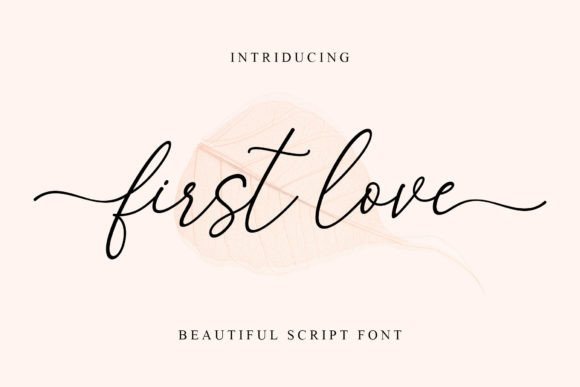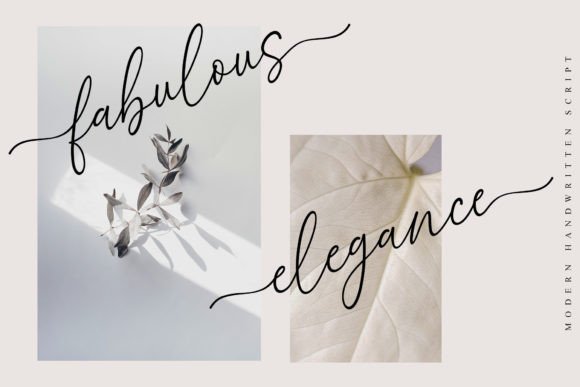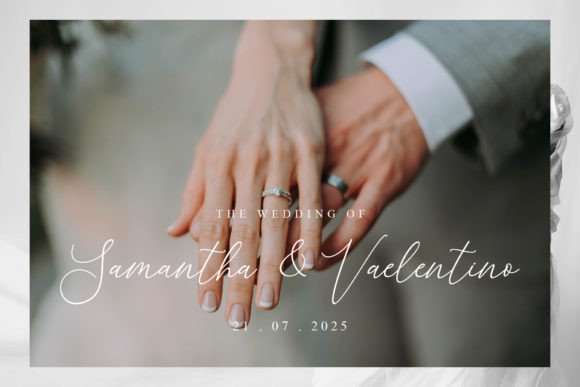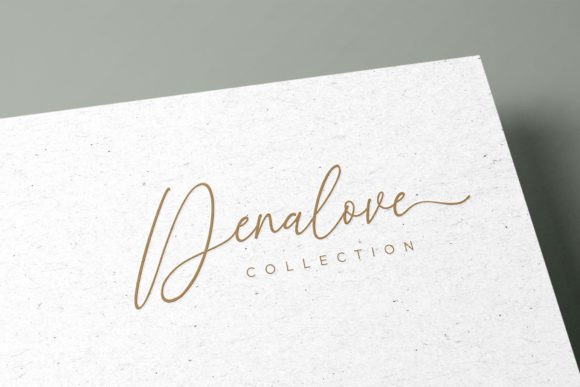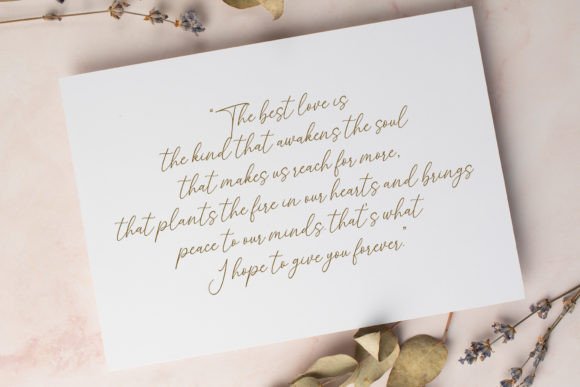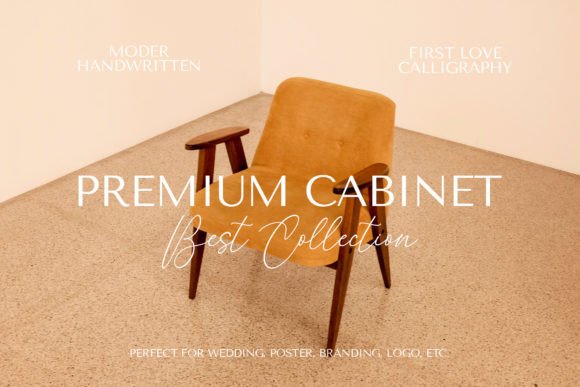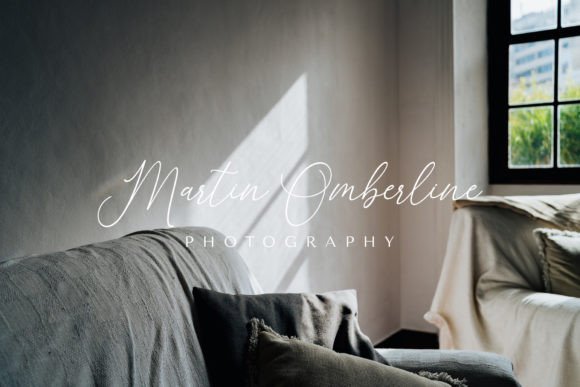
The Moment Your Heart Beats for Design
Have you ever been so captivated by a design that it felt like a piece of your heart was on display? For many of us, it’s that one project that sparks a passion for creativity, a project that reminds us why we love making things. Maybe it was a wedding invitation that set the tone for your best friend’s special day, or a logo that perfectly captured the essence of your brand. Whatever it was, it’s a feeling we all know and cherish.
For designers, finding the right font can be the key to unlocking that magic. That’s where the First Love Font comes in – a charming and modern script font designed to add a personal touch to your designs. With its smooth and flowing letterforms, this font is perfect for wedding invitations, social media posts, logos, and other design projects that require a touch of elegance and sophistication.
Key Features of First Love Font
- Font Family: First Love Font is a unique, handwritten font designed to evoke emotions and convey a sense of romance.
- Size: Each font character is carefully crafted in a single weight, making it easy to use across various design projects.
- Resolution: Optimized for high-resolution displays, ensuring clear and crisp text output on modern devices.
- Unique Characteristics: Features a mix of elegant, cursive, and handwritten elements, making it perfect for wedding invitations, love letters, and other romantic designs.
- Character Set: Includes a wide range of characters, including uppercase and lowercase letters, numbers, and punctuation marks, as well as various ligatures and swashes.
First Love Font Review
I’ve had the chance to work with the First Love Font, and I must say, it’s a lovely addition to any design project. ✨ One of the things I appreciate about this font is its elegant and whimsical feel, making it perfect for romantic or vintage-themed designs.
Here are some of its key features that I enjoy:
- ✨ Beautifully crafted ligatures that add a touch of sophistication
- ✨ A wide range of weights and styles to choose from, ensuring versatility in design applications
- ✨ The font’s soft, rounded edges make it easy on the eyes and a pleasure to read
However, as with any font, there are some limitations to consider:
- ⚠️ Limited support for certain languages, which may be a concern for multilingual designs
- ⚠️ Some characters may not render correctly on certain platforms or devices
Overall, I think the First Love Font is a lovely choice for designers looking to add a touch of romance or whimsy to their projects. While it may have some limitations, its unique character and versatility make it a great addition to any design library.
To get the most out of the First Love Font, use it for:
- Valentine’s Day and romantic-themed designs
- Floral and botanical designs
Remember to pair the font with a complementary color scheme to enhance its romantic and whimsical feel.
The First Love Font is ideal for:
- Wedding invitations and save-the-dates
- Love letters and romantic quotes
- Floral and botanical designs
When to use: Wedding invitations, formal events, luxury brands, and classic designs.
Playfair Display is a luxurious and elegant font ideal for titles, headings, and body text. It is perfect for creating a high-end and sophisticated look. Playfair Display is more ornate and decorative compared to First Love Font, making it ideal for luxury brands and high-end designs.